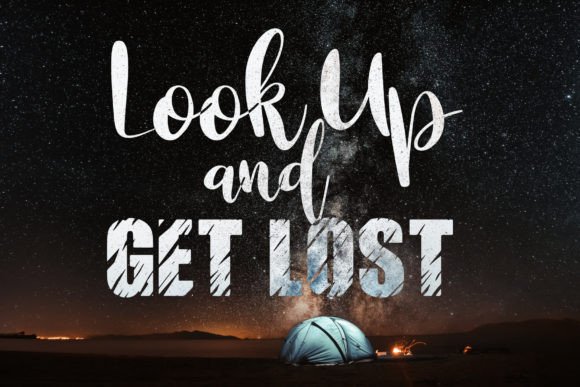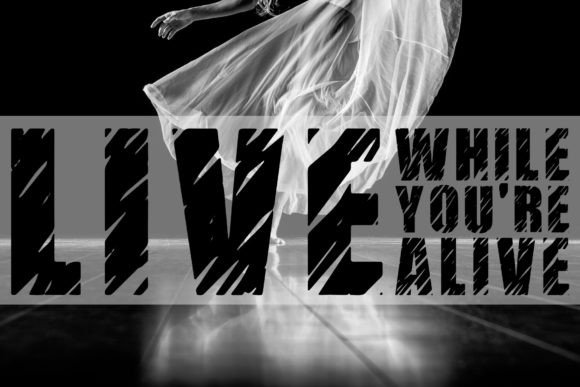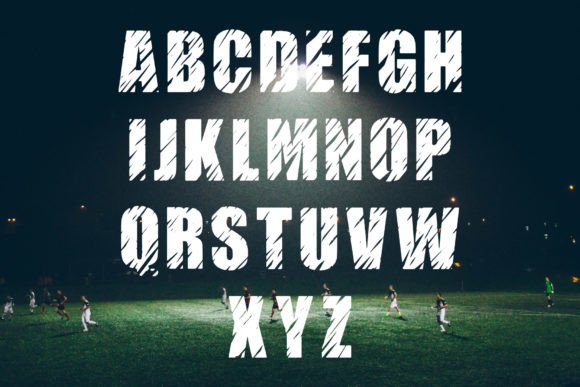
Dream Big Font: The Ultimate Sports Display Font for Creative Projects
Dream Big Font is a stunning sports display font that is sure to capture the attention of everyone who lays eyes on it. With its masterful design, this font has the potential to elevate your creative ideas to new heights and make them stand out from the crowd. In this article, we’ll dive into the features, benefits, and uses of the Dream Big Font, and explore why it’s a must-have for designers, crafters, and anyone looking to add a touch of excitement to their projects.
What is Dream Big Font?
Dream Big Font is a sports display font that is specifically designed to make a statement. Its bold, eye-catching letters are perfect for creating attention-grabbing headlines, titles, and slogans for a wide range of projects, from sports-themed designs to motivational posters and more. With its unique and stylish design, this font is sure to become a favorite among designers and crafters alike.
Key Features of Dream Big Font
- Bold and Eye-Catching Design: Dream Big Font features bold, eye-catching letters that are sure to grab attention and make your projects stand out.
- Sports-Themed: This font is specifically designed with sports in mind, making it perfect for sports-themed designs, such as team logos, jerseys, and more.
- High-Quality Design: Dream Big Font is masterfully designed to ensure that it looks great in any size or format.
- Versatile: This font can be used for a wide range of projects, from digital designs to print materials.
Benefits of Using Dream Big Font
So, why should you choose Dream Big Font for your next project? Here are just a few benefits of using this amazing font:
- Adds a Touch of Excitement: Dream Big Font adds a touch of excitement and energy to any project, making it perfect for sports-themed designs and more.
- Enhances Creativity: With its unique and stylish design, Dream Big Font can help inspire your creativity and take your projects to the next level.
- Professional-Looking Results: This font is designed to produce professional-looking results, making it perfect for designers and crafters who want to create high-quality projects.
Uses for Dream Big Font
Dream Big Font is a versatile font that can be used for a wide range of projects, including:
- Sports-Themed Designs: Use Dream Big Font to create attention-grabbing team logos, jerseys, and more.
- Motivational Posters: This font is perfect for creating motivational posters and quotes that inspire and motivate.
- Digital Designs: Use Dream Big Font to add a touch of excitement to your digital designs, such as social media graphics and more.
- Print Materials: This font can be used for a wide range of print materials, including brochures, flyers, and more.
Tips for Using Dream Big Font
Here are a few tips for getting the most out of Dream Big Font:
- Use it Sparingly: While Dream Big Font is eye-catching, it’s best to use it sparingly to avoid overwhelming your design.
- Pair it with Other Fonts: Experiment with pairing Dream Big Font with other fonts to create a unique and stylish look.
- Experiment with Colors: Try out different colors and color combinations to find the perfect look for your project.
| Author | Ten Times Studio |
Dream Big Font is a sports display font that is sure to capture the attention of everyone who lays eyes on it. With its bold, eye-catching design and versatile uses, this font is a must-have for designers, crafters, and anyone looking to add a touch of excitement to their projects. Whether you’re creating sports-themed designs, motivational posters, or digital designs, Dream Big Font is the perfect choice. So why wait? Download Dream Big Font today and take your creative projects to new heights!